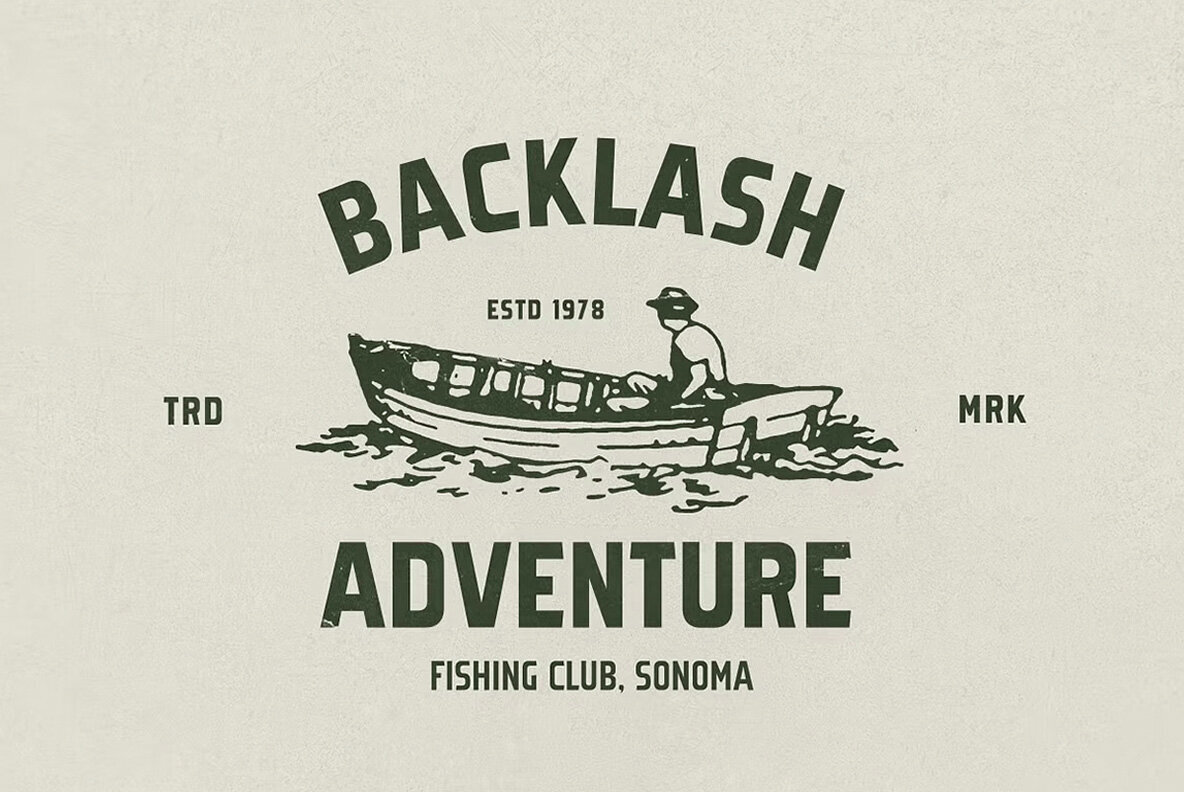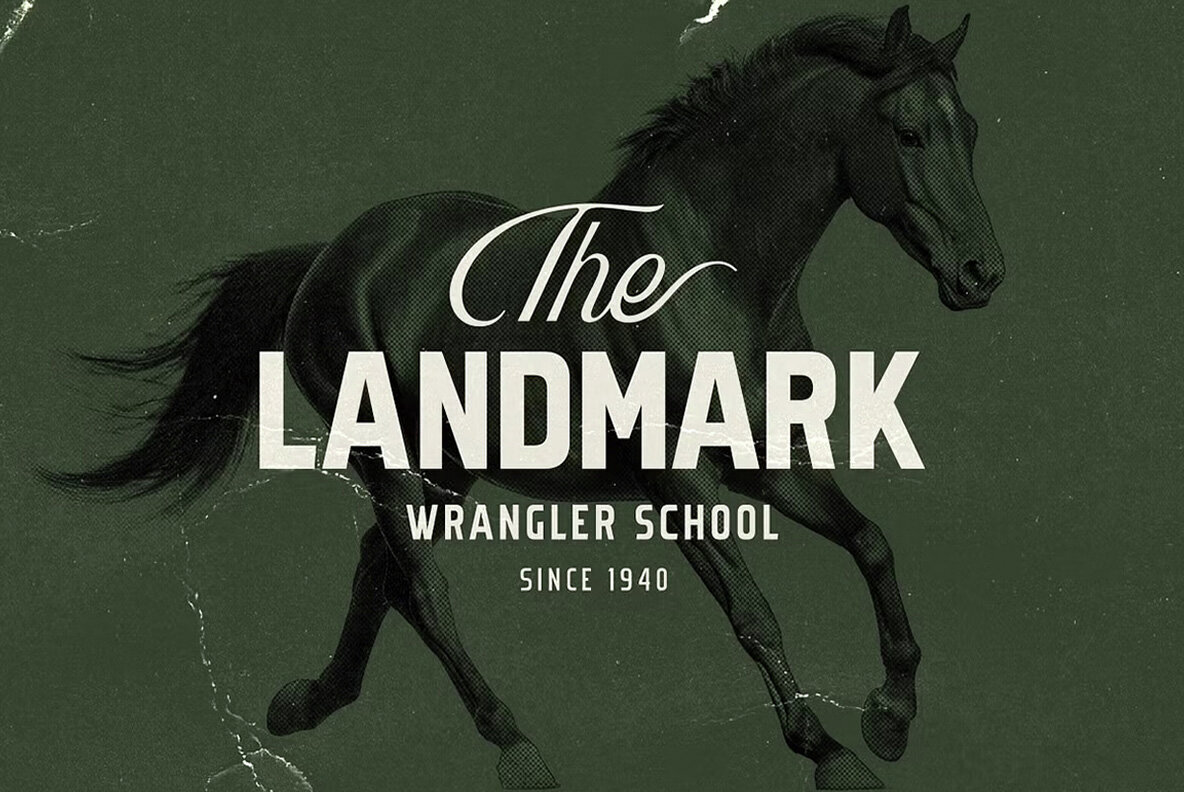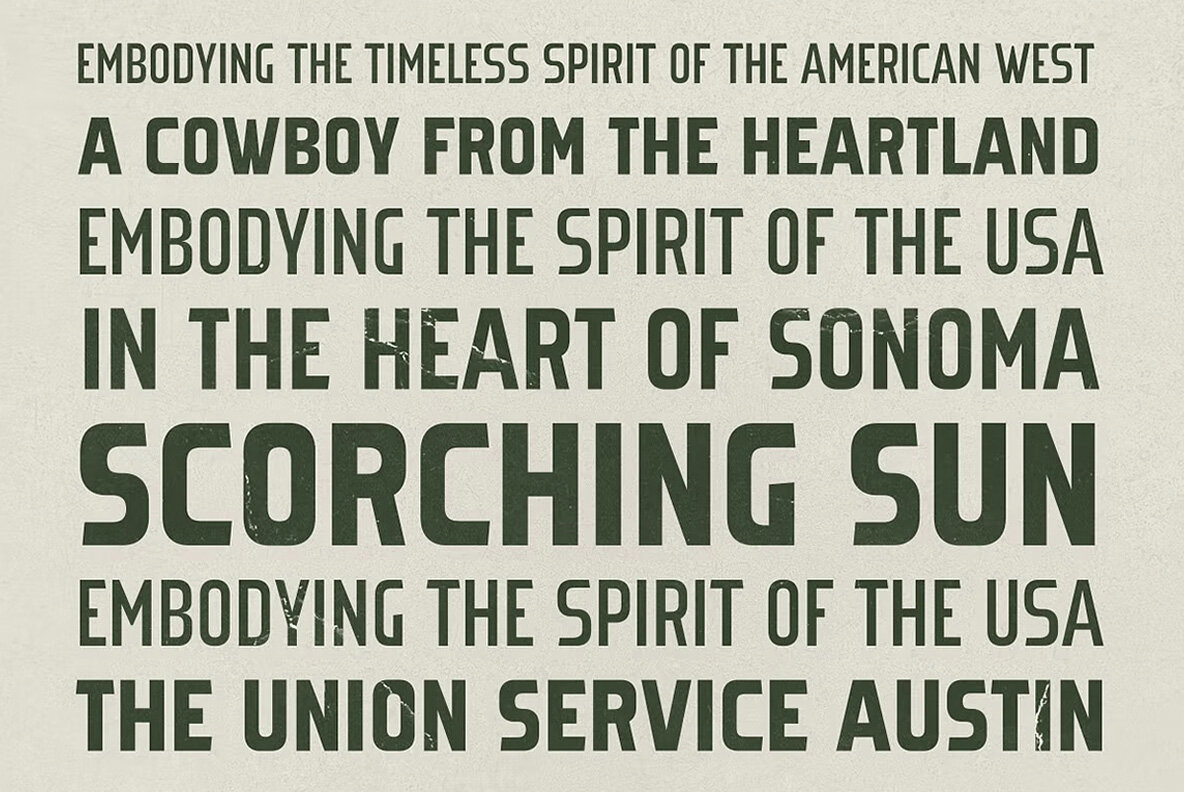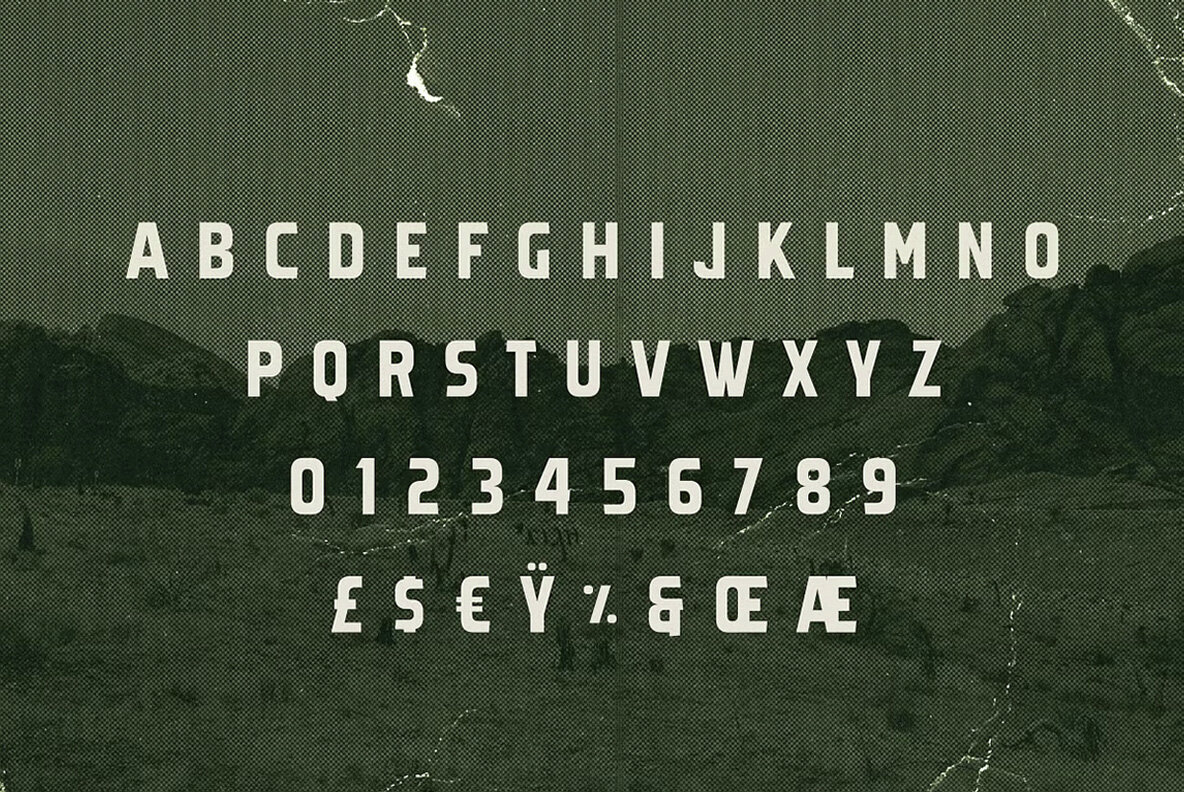
Sonoma Font
Sonoma Desert is a bold and rugged condensed retro-inspired sans serif typeface. Drawing inspiration from the timeless charm of vintage signage found along dusty desert highways, Sonoma Desert exudes a sense of adventure and authenticity. It features light, regular, and bold version - allowing you to choose the perfect weight to convey your message with clarity and impact. Included in your download: